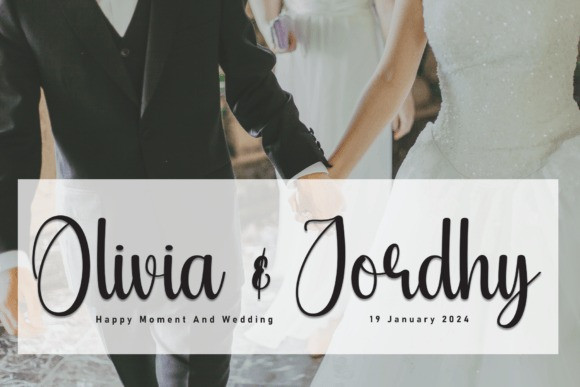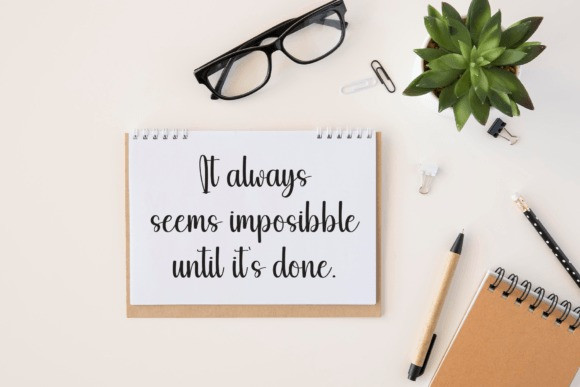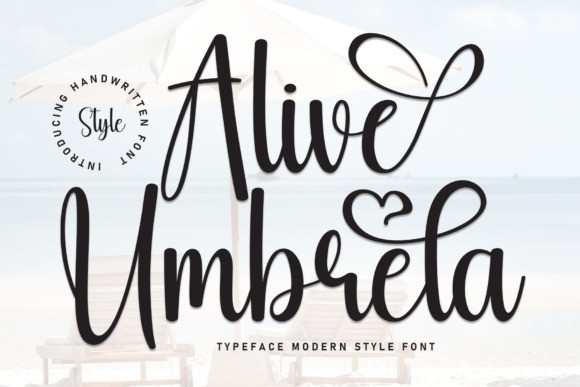
Alive Umbrela Font
Alive Umbrela Font is a sweet and delicate handwritten font. Dainty and joyful, this font will be ideal for writing wedding invitations, cards, or any other design that may need a romantic, personalized touch!